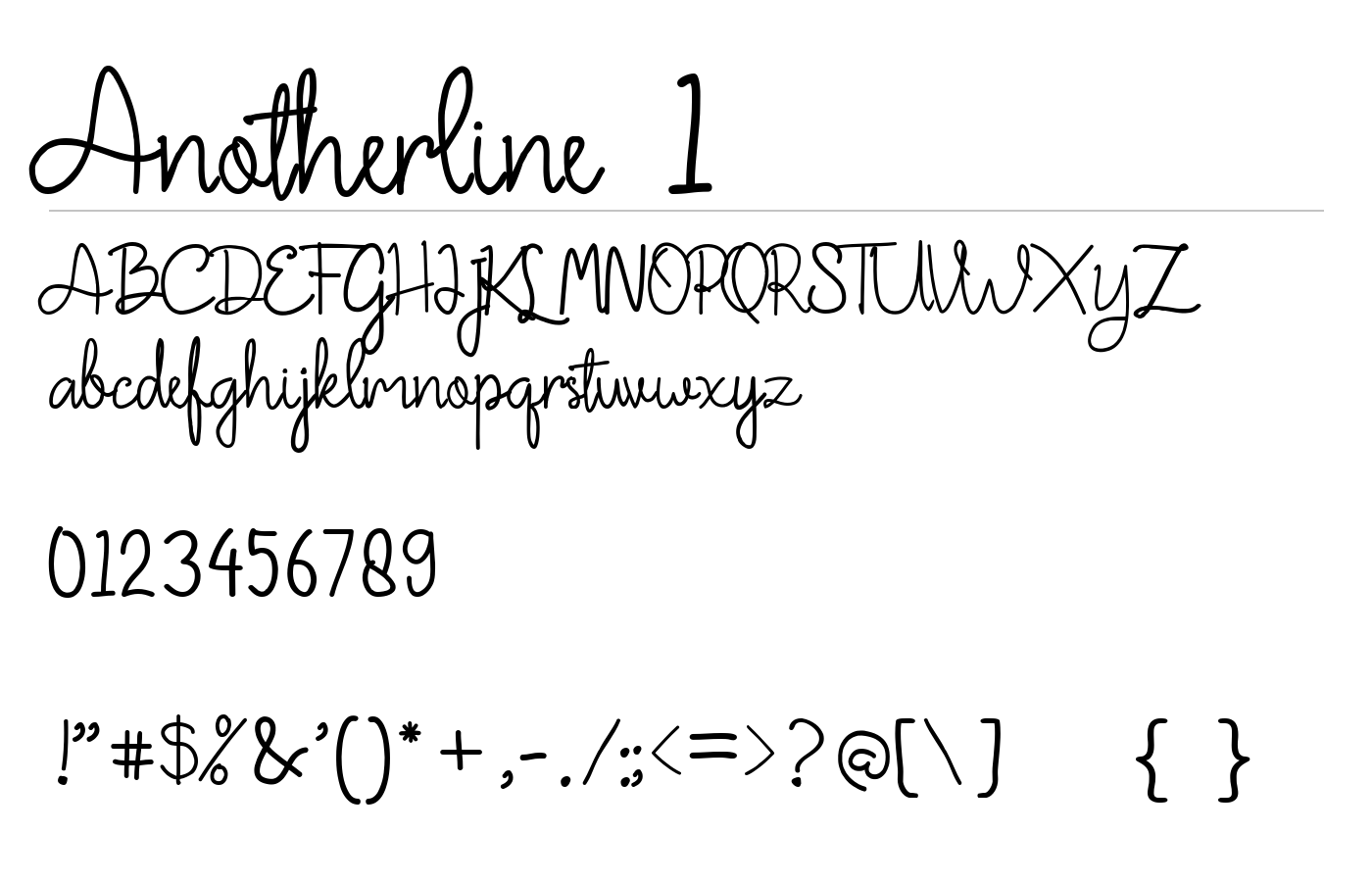
Anotherline_1 is a playful and whimsical handwritten font with a tall x-height and slender, flowing strokes that create a casual yet elegant feel. Its light weight and irregular letterforms add a personal, approachable touch, making it ideal for creative projects, informal branding, or invitations where a friendly, distinctive style is desired. This font works well in headlines and display uses where personality and charm are key.
Anotherline_1 Font
About Anotherline_1 Font
| Font family | Anotherline_1 Font |
| Designer | kurniawan27 |